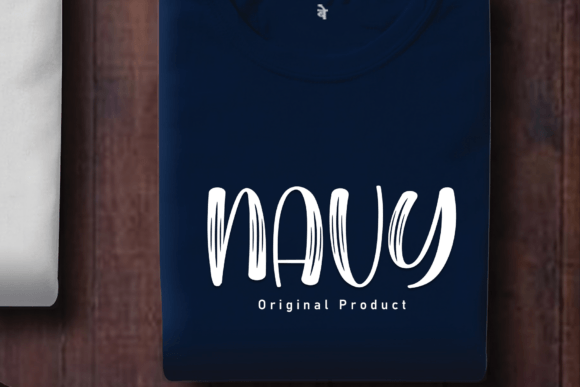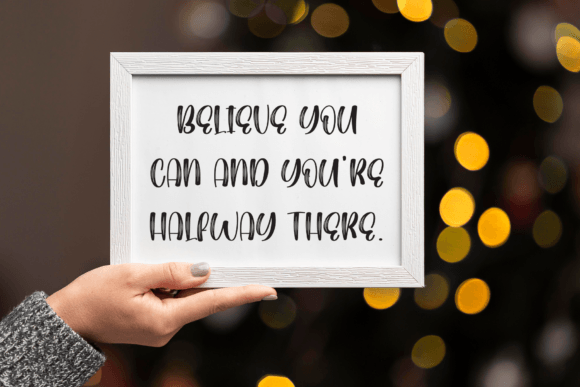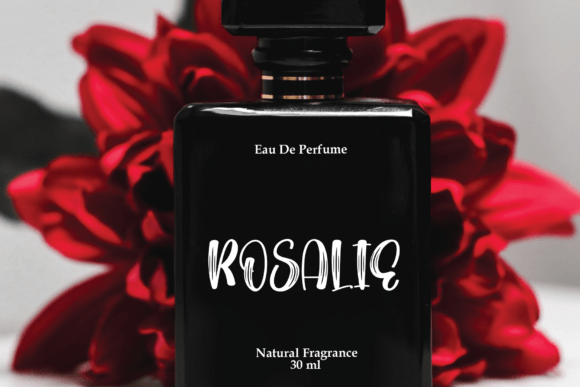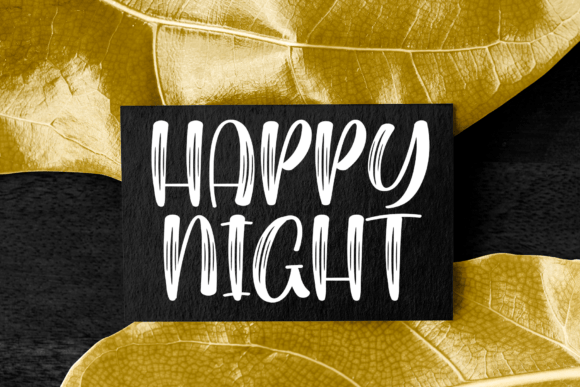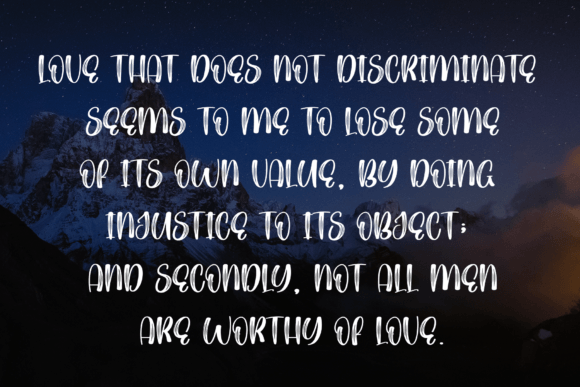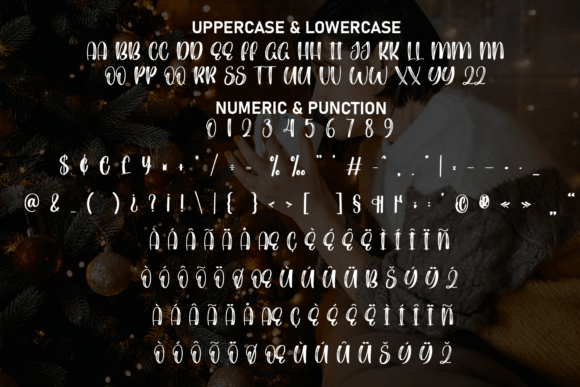
Introduction to Christmas Dreamer Font
Bring the magic of the holidays to life with Christmas Dreamer , a whimsical and creative font featuring bold strokes and hand-drawn details.
Perfect for holiday cards, festive decorations, branding, and social media posts, this typeface captures the cozy charm and wonder of the season Let Christmas Dreamer add a playful yet elegant touch to your designs.
Key Features of Christmas Dreamer Font